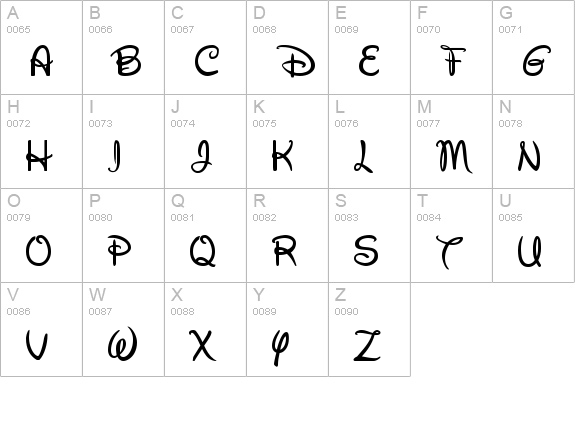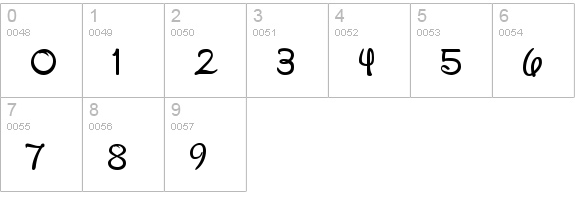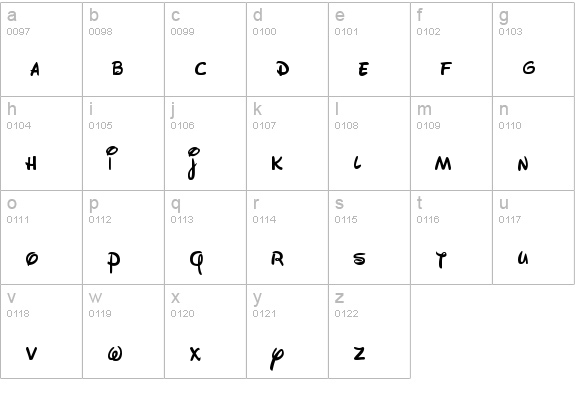
Introducing the magical Walt Disney Script font, a whimsical and playful typeface that will transport you to the enchanting world of Disney. This delightful font captures the essence of Walt Disney's iconic brand, with its fluid and graceful letterforms that dance across the page. With its charmingly hand-drawn appearance, Walt Disney Script adds a touch of nostalgia and innocence to any project. Whether you're designing invitations, creating posters, or crafting a heartfelt message, this font is the perfect choice to bring a touch of Disney magic to your work. One of the best parts about Walt Disney Script is that it is free! That's right, this captivating font can be freely downloaded at FontsMarket.com. Now, you can add a touch of Disney enchantment to your designs without breaking the bank. It's a wonderful opportunity to let your creativity soar and infuse your projects with the beloved Disney spirit. So, if you're looking to add a touch of whimsy and wonder to your designs, look no further than Walt Disney Script. With its free availability at FontsMarket.com, it's never been easier to bring the magic of Disney into your creative endeavors. Download this delightful font today and let your imagination run wild!